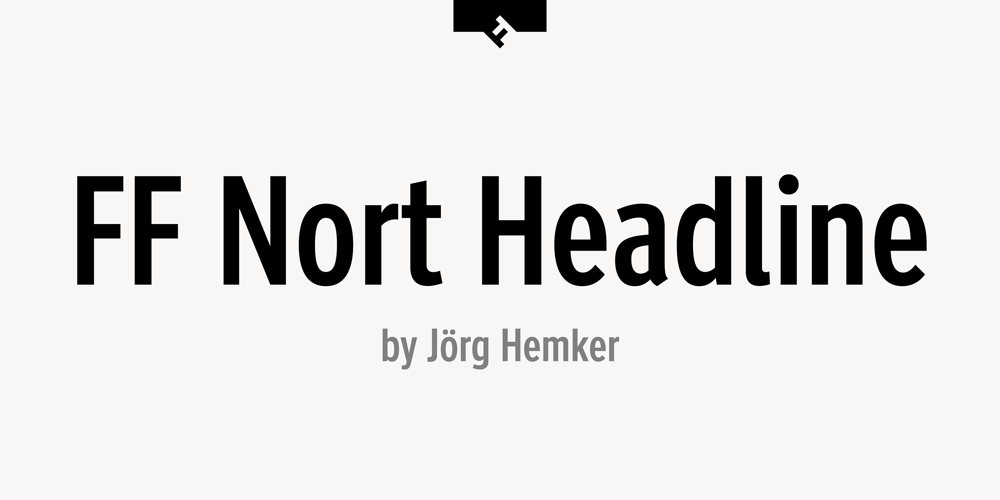
FF Nort Headline Font Family was designed by Jörg Hemker and published by FontFont. FF Nort Headline contains 3 styles and family package options. The FF Nort™Headline is the ideal companion to the already released FF Nort typeface family.It is open, inviting, highly legible, strikingly handsome and a comfortable performer on screen and in print.As a powerful display type tool, it is perfect for headlines, navigational links and banners.OpenType® Pro fonts of FF Nort Headline, have extended character sets that support most Central European and several Eastern European languages – including Greek and Cyrillic. Graphic communicators will also benefit from the additional ligatures, and suite of symbols and signs.FF Nort’s designer Jörg Hemker has a background in corporate and governmental design and has received a variety of awards for his work – including the prestigious German Red Dot Design Award. He works as a freelance graphic and branding designer and is a lecturer in type and typography at the University of Applied Science in Hamburg